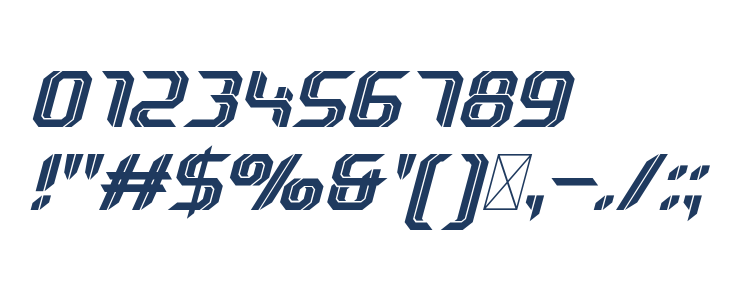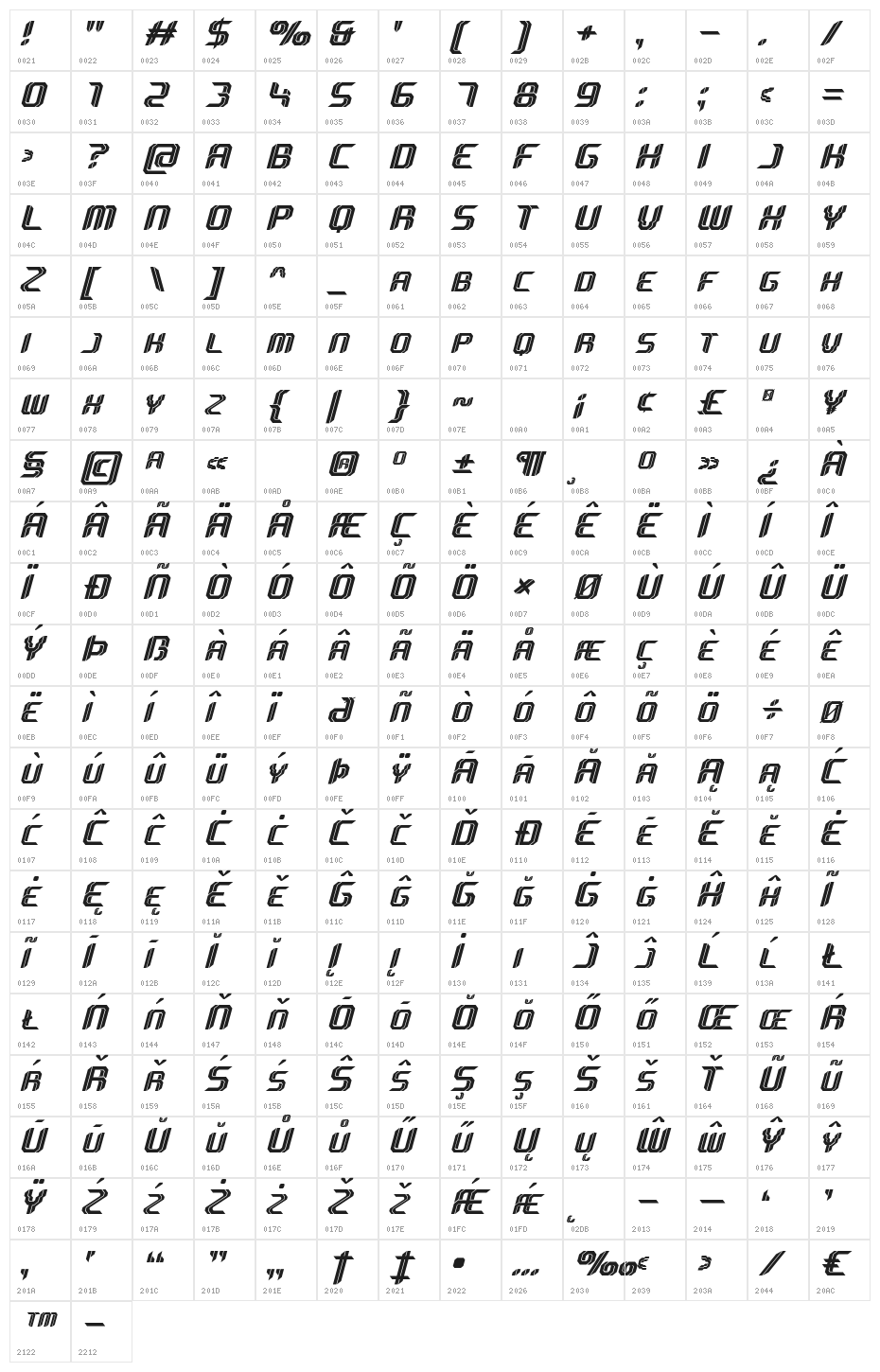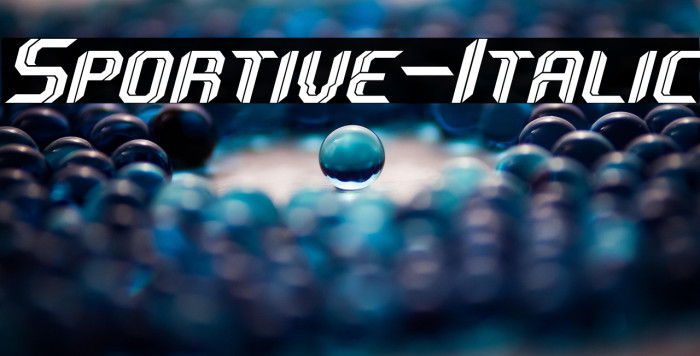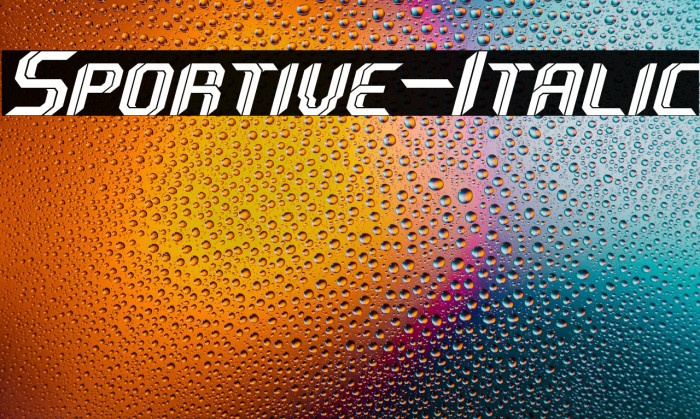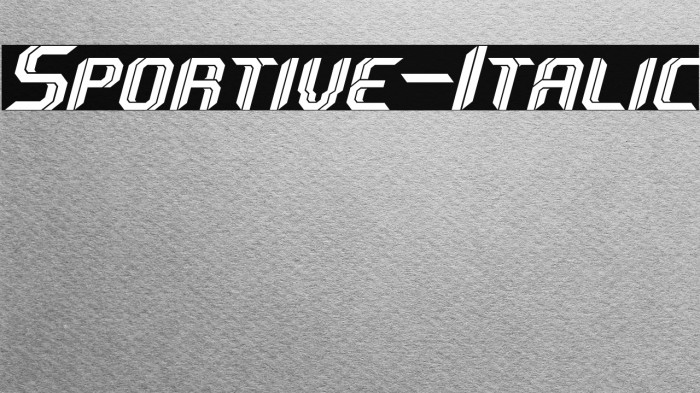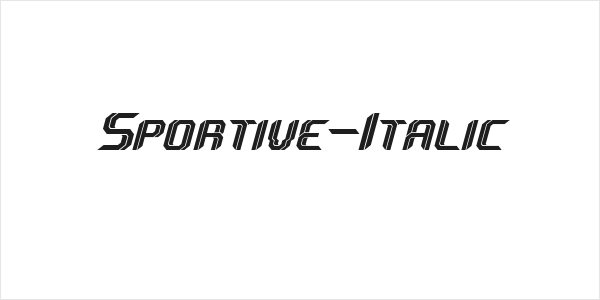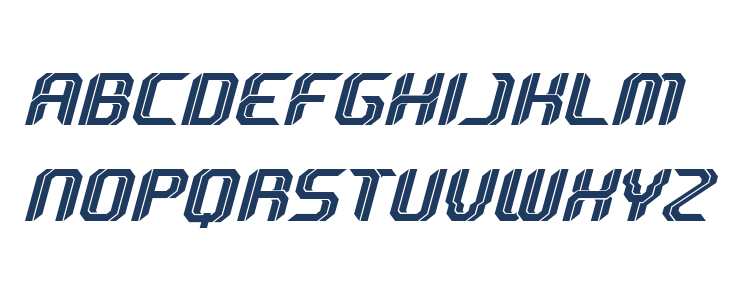
Sportive-Italic Font
Sportive-Italic Description
This font features a dynamic and angular design, characterized by its italicized and bold appearance. The letters are constructed with sharp, geometric lines that convey a sense of motion and energy, making it ideal for sports-related themes. The uppercase and lowercase letters maintain a consistent style, with a futuristic and edgy look. The numbers and special characters follow the same design principles, ensuring uniformity across all elements. The font's unique style is both eye-catching and modern, suitable for projects that require a bold statement.